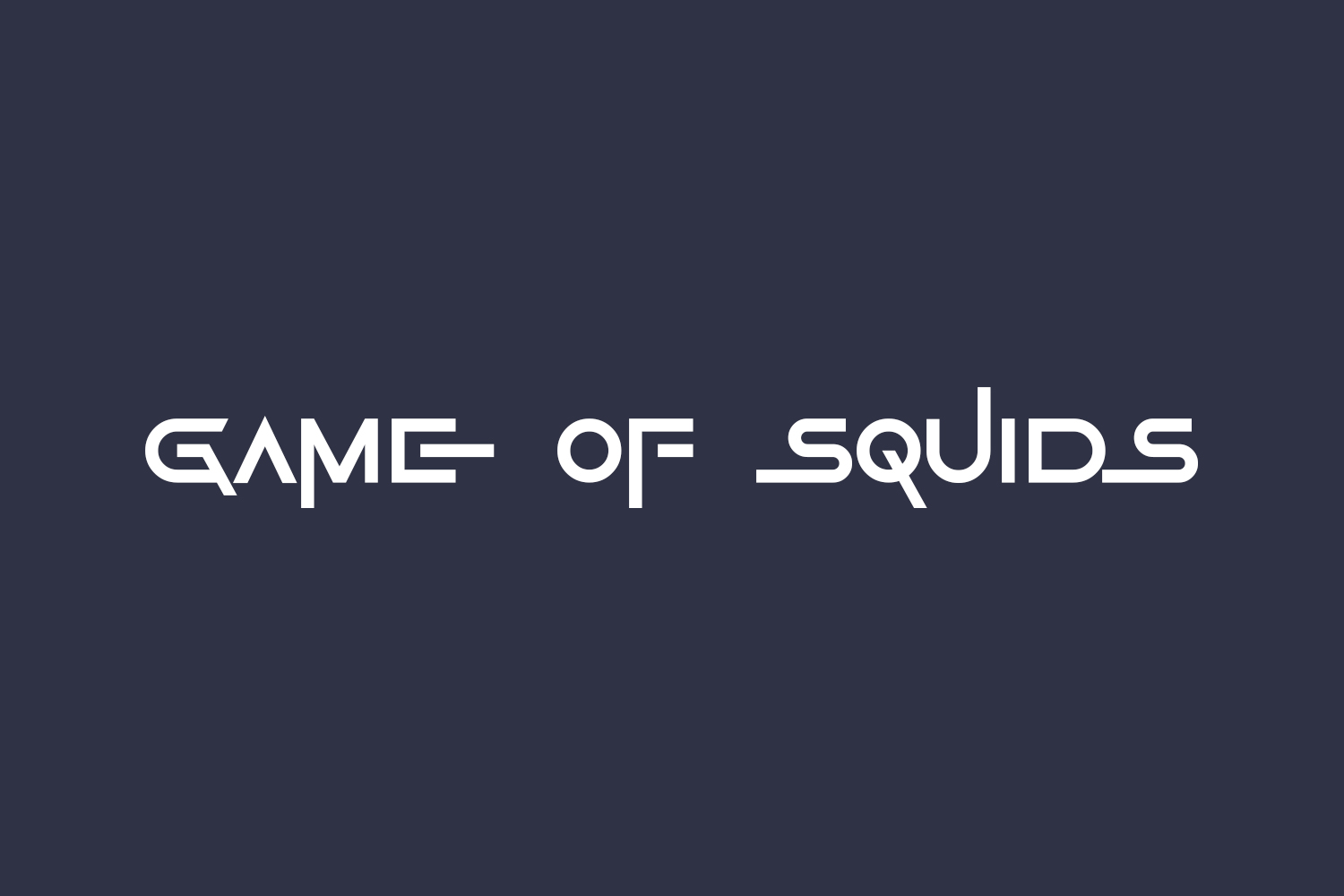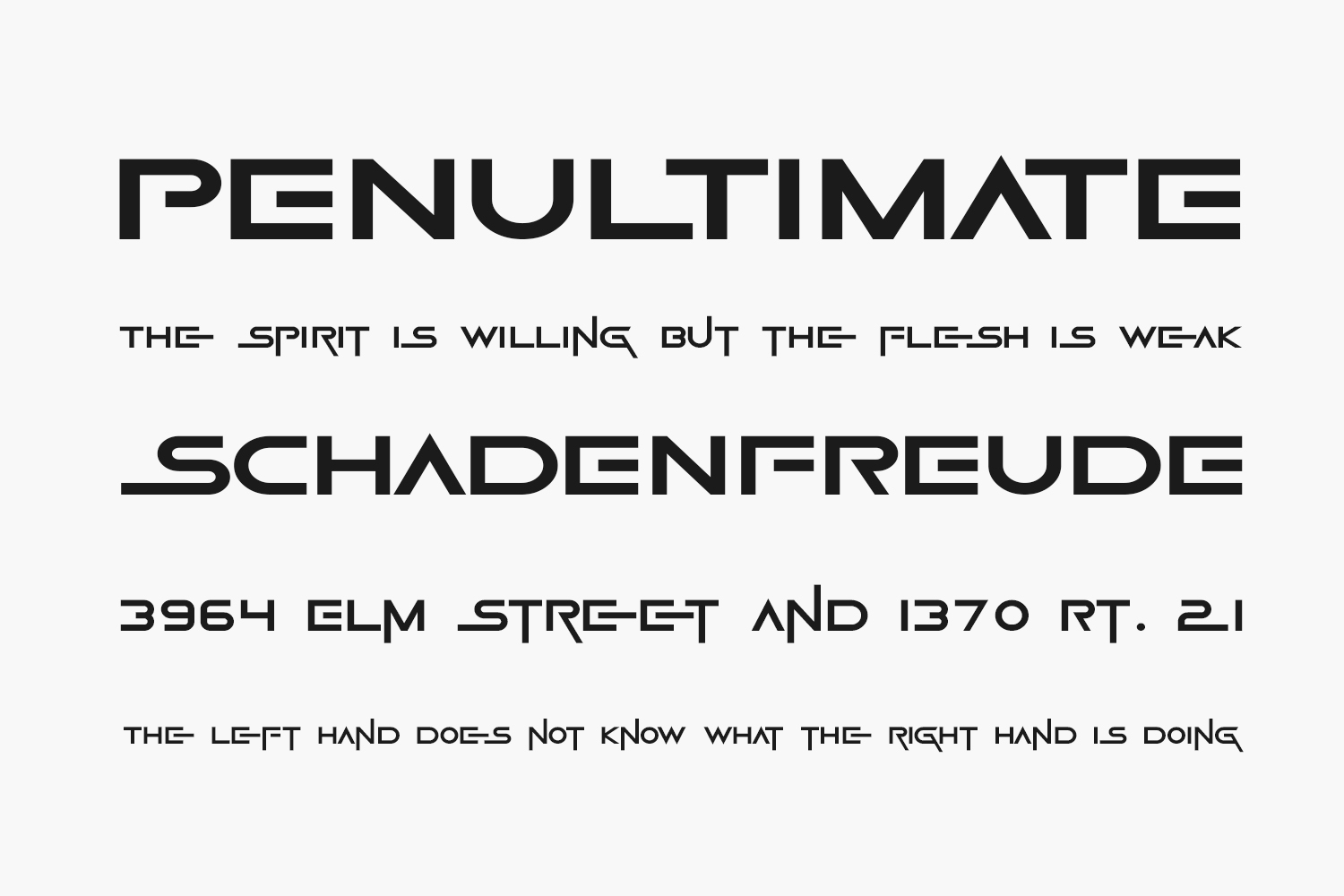
Game Of Squids Free Font was designed by Darrell Flood and is free for personal or commercial use. This font is not endorsed by Netflix (or anyone else). It is inspired by the “Squid Game” series logo.